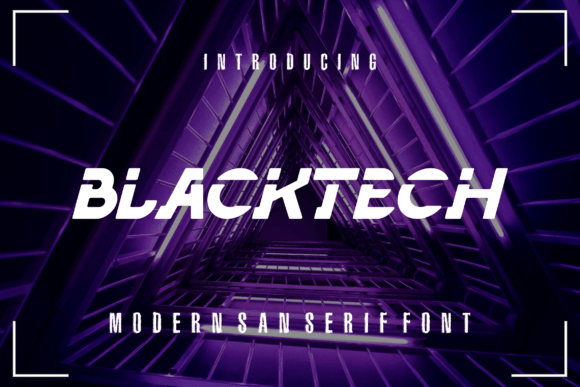
The Perfect Font for Your Next Sci-Fi Project
Have you ever been stuck on a design project, staring at a blank canvas, desperately searching for the perfect font to bring your vision to life? That was me last week, and I’m sure many designers can relate. After hours of browsing through countless fonts, I stumbled upon the Blacktech Font – a modern sans serif font that’s out of this world.
Blacktech Font is more than just a font; it’s a gateway to a futuristic world of design possibilities. Its innovative and bold vibe can easily apply to your favorite designs that require a sci-fi touch, making it an absolute must-have for designers who want to push the boundaries of creativity.
Whether you’re working on a project that involves space exploration, cutting-edge technology, or anything in between, the Blacktech Font is sure to elevate your design to the next level.
- Unique Characteristics: This font features a distinctive blend of modern and industrial elements, with sharp lines and geometric shapes, making it ideal for tech and futuristic designs.
Designer Review: Blacktech Font
As a designer, I’ve had the chance to experiment with Blacktech Font, and here’s my honest take.
- Blacktech Font has a unique and futuristic aesthetic that’s perfect for tech and sci-fi related projects.
- The font’s bold and sans-serif design makes it highly legible, even at small font sizes.
- The font’s versatility shines through its various weights and styles, making it suitable for a wide range of applications.
- The font’s lack of subtlety can make it feel overwhelming in certain contexts.
- Some users may find the font’s boldness too harsh, especially when used in long blocks of text.
- The font’s sci-fi inspiration can feel dated or clichéd if not used thoughtfully.
Overall, I think Blacktech Font is a solid choice for designers looking to add a touch of futurism to their projects. While it may not be suitable for every project, its unique aesthetic and versatility make it a great option for the right use case.
For a more professional look, pair the Blacktech Font with a clean background and minimal design elements.
For a bold look, use the Blacktech Font with a bold weight and a contrasting background color.
For a modern look, pair the Blacktech Font with a clean and simple design.
The Blacktech Font is ideal for:
- Modern brand identities
- Minimalist designs
- Technical and scientific presentations
Remember to use the Blacktech Font consistently throughout your design to create a cohesive look.